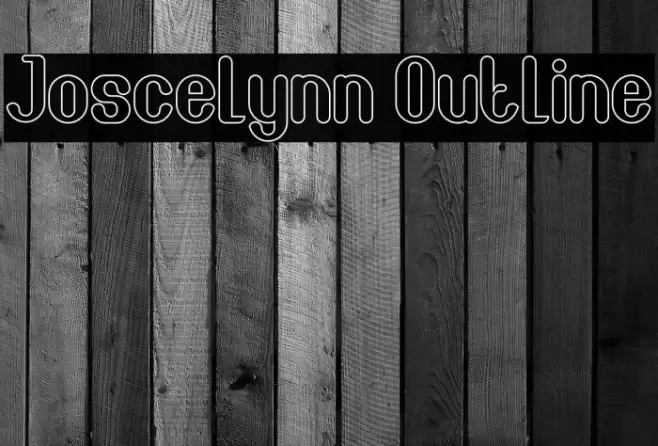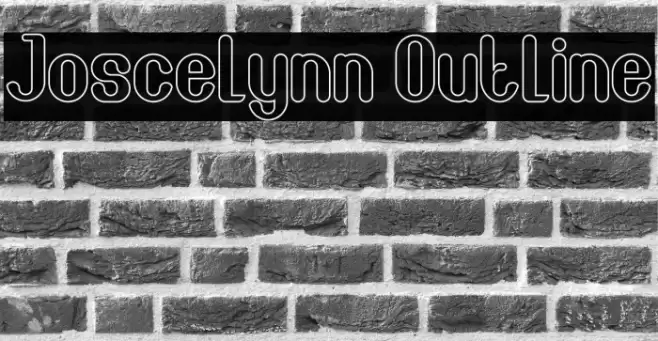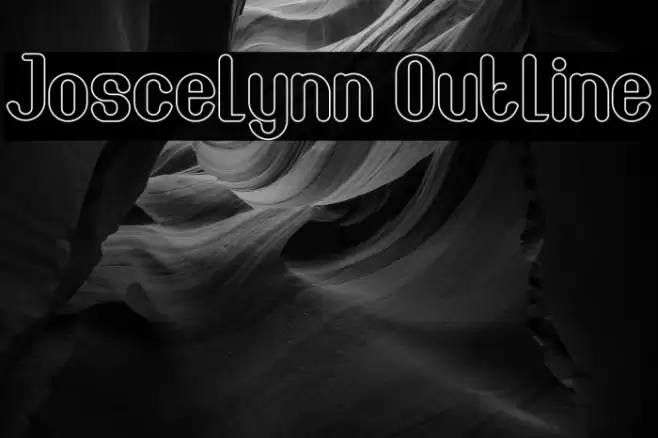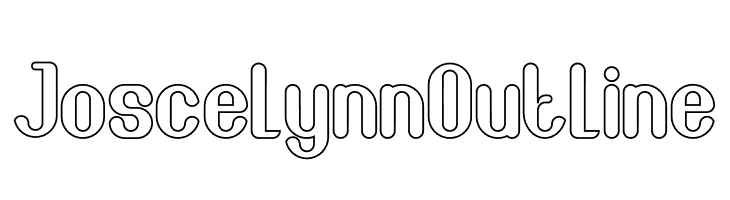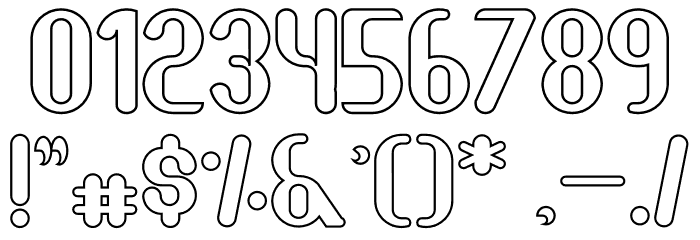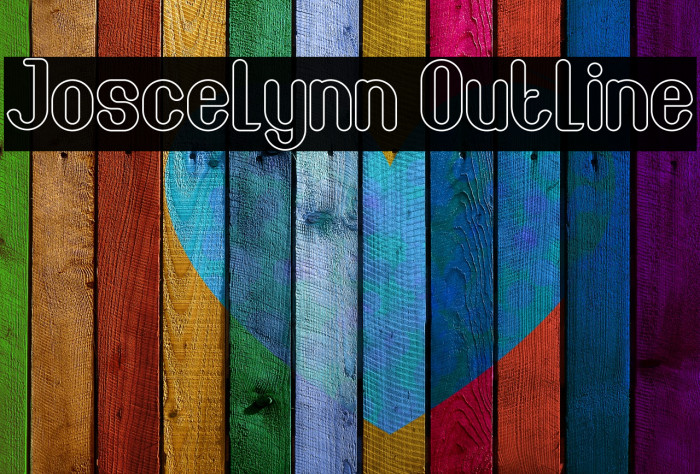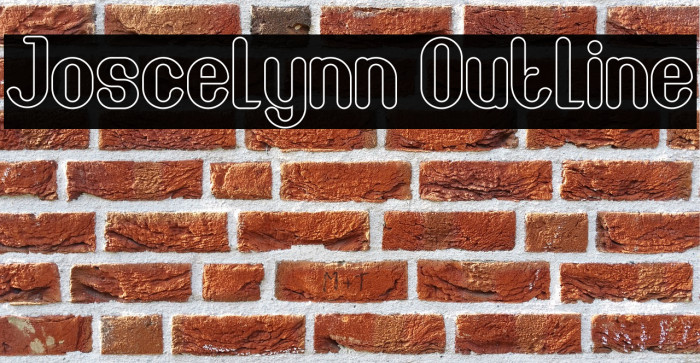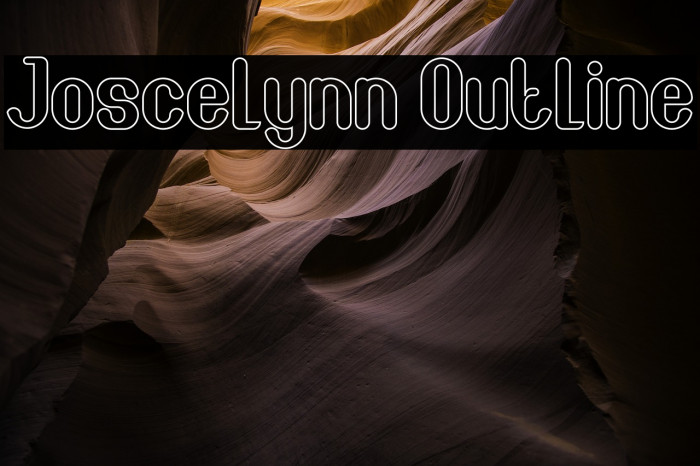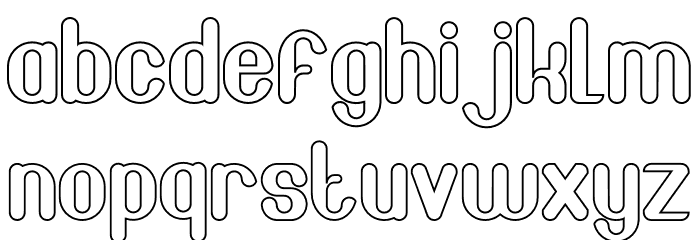
Joscelynn Outline Font
Joscelynn Outline Description
This font features a unique outline style that gives it a modern and playful appearance. The characters are constructed with a consistent stroke width, creating a cohesive and balanced look. The uppercase and lowercase letters maintain a uniform height, while the numbers and special characters are designed to complement the overall aesthetic. The font's open and airy design makes it suitable for a variety of creative applications, providing a sense of lightness and fun. Its distinctive outline form allows for easy readability and adds a touch of elegance to any project.
A modern, playful outline font with consistent stroke width and balanced design from Uncategorized fonts.
- Proposed Projects: Ideal for creative projects such as posters, logos, and headlines where a playful and modern look is desired.